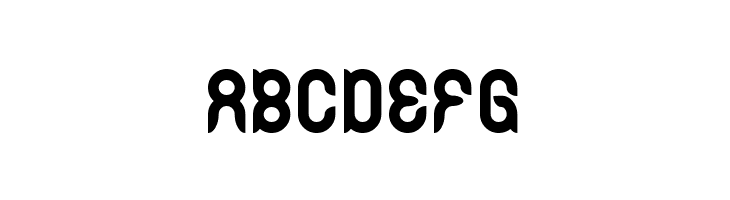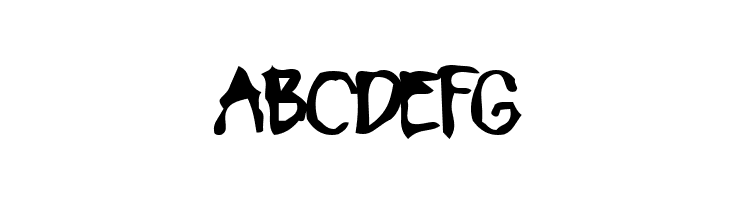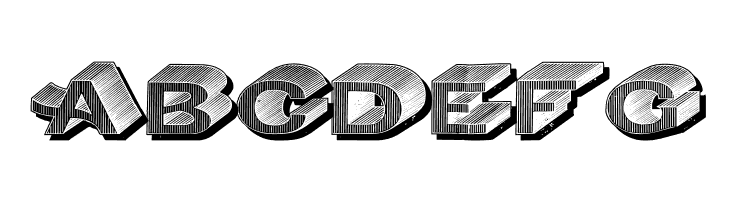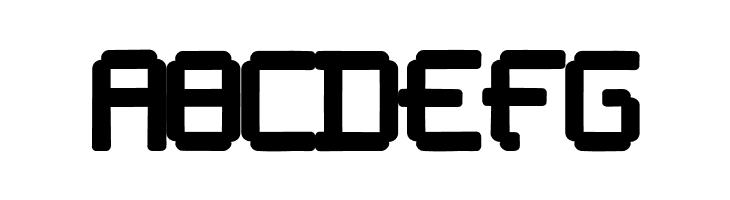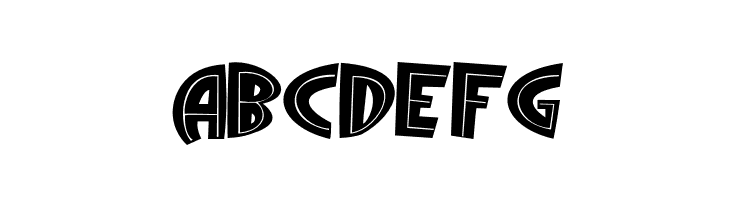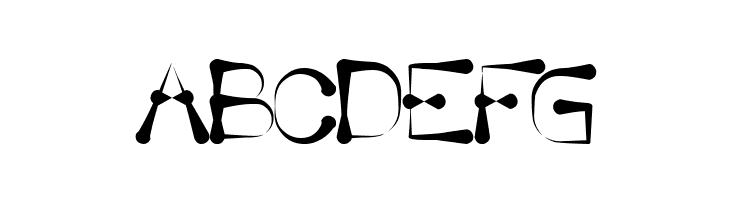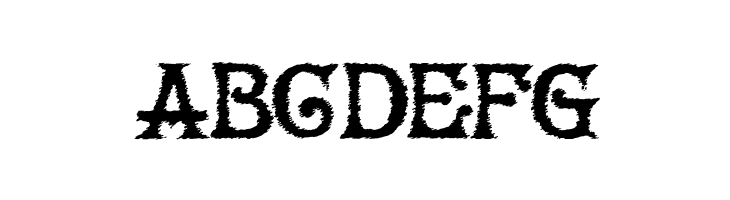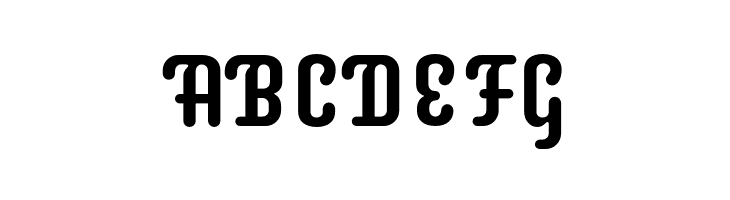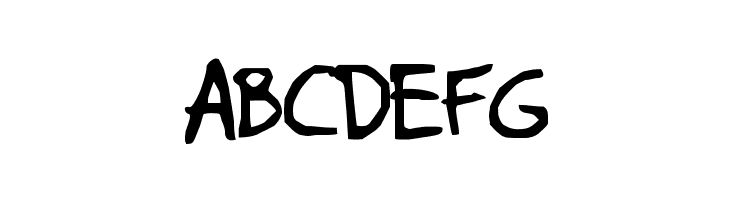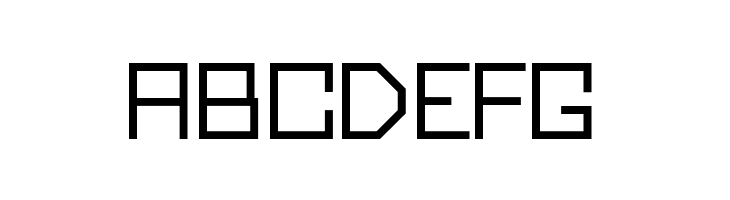
A futuristic italic font with sharp angles and a digital layered effect.
A bold, playful font with rounded edges and a retro vibe.
A bold, irregular, and playful font with a hand-drawn appearance.
A bold, futuristic font with a digital, geometric style.
A bold, playful, and quirky decorative font with high contrast and artistic flair.
A playful, bold font with a whimsical, liquid-like design.
A playful, bold font with rounded, inflated characters ideal for informal designs.
A bold, playful font with rounded edges and a modern-retro charm.
A futuristic, geometric font with bold, angular letterforms.
A futuristic, segmented font with an oblique slant and digital appearance.
A bold, 3D stone-textured font with a rugged, angular design.
A geometric, bold font with a modern and architectural style.
A futuristic, geometric font with bold, interconnected lines and angular shapes.
An artistic font with swirling, entangled lines creating a whimsical and decorative style.
A decorative font with playful, flowing curves and bold, rounded strokes.
A bold, geometric font with a futuristic and sci-fi aesthetic.
A fragmented, pixelated font with a modern, edgy style.
An artistic, abstract font with thin, fluid strokes and a modern aesthetic.
A playful and decorative font with bold, whimsical characters.
A playful and quirky font with unique, rounded character shapes.
A bold, gothic-style font with sharp, angular edges and a dramatic flair.
A bold, angular font with sharp, thorn-like edges for a fierce look.
A bold, distressed serif font with a vintage, weathered appearance.
A dripping, gothic-style font with a bold, artistic flair.
A bold, abstract font with fluid, irregular shapes and close character spacing.
A futuristic, line-based font with a geometric and digital aesthetic.